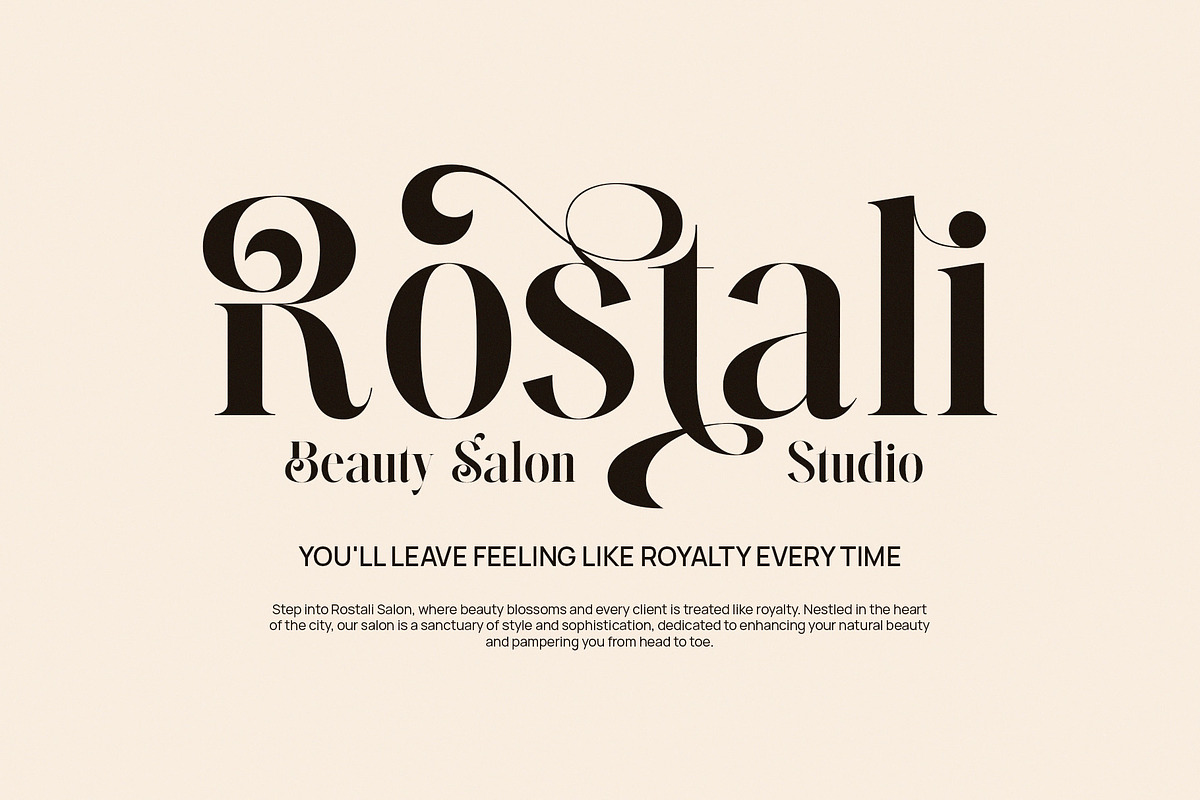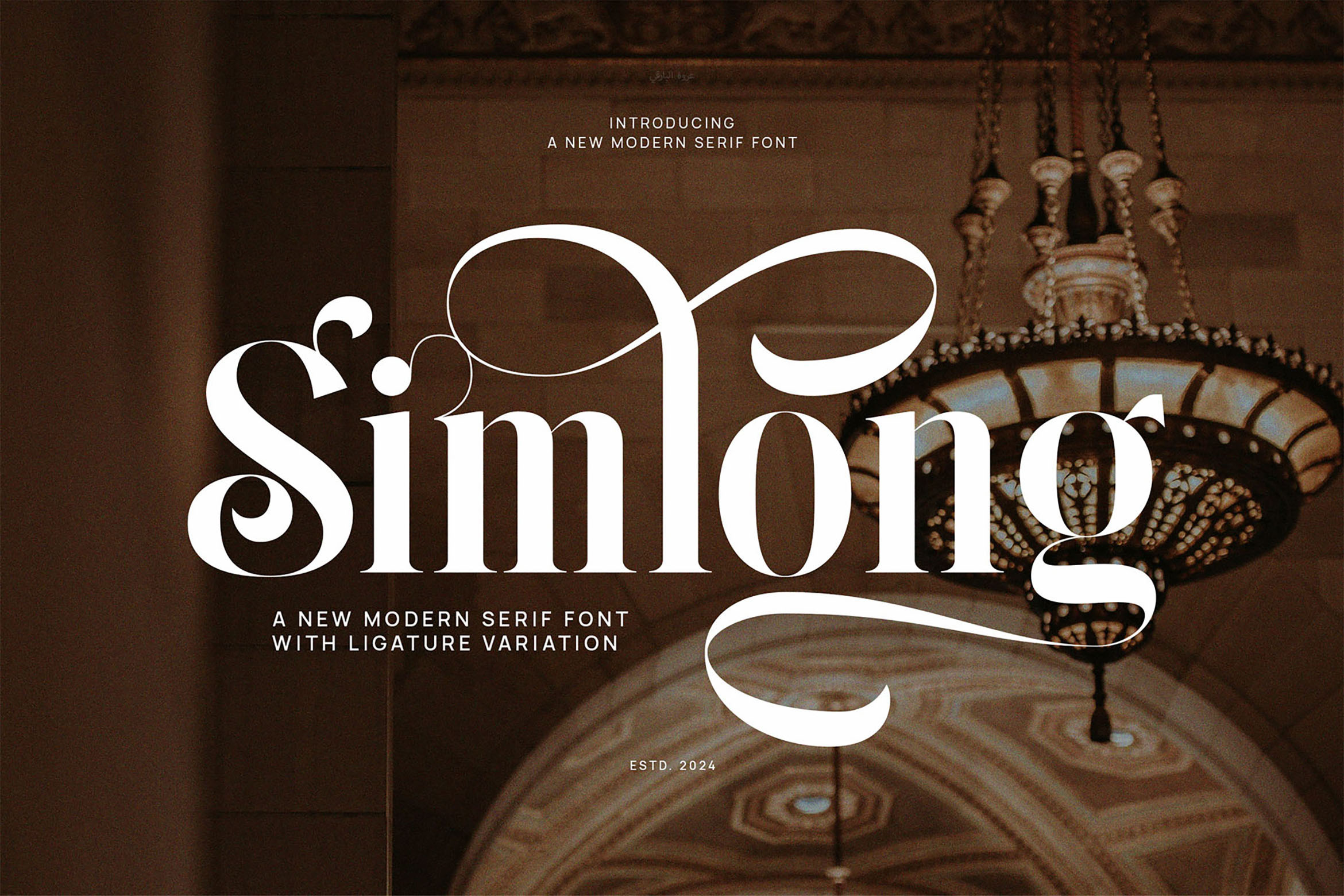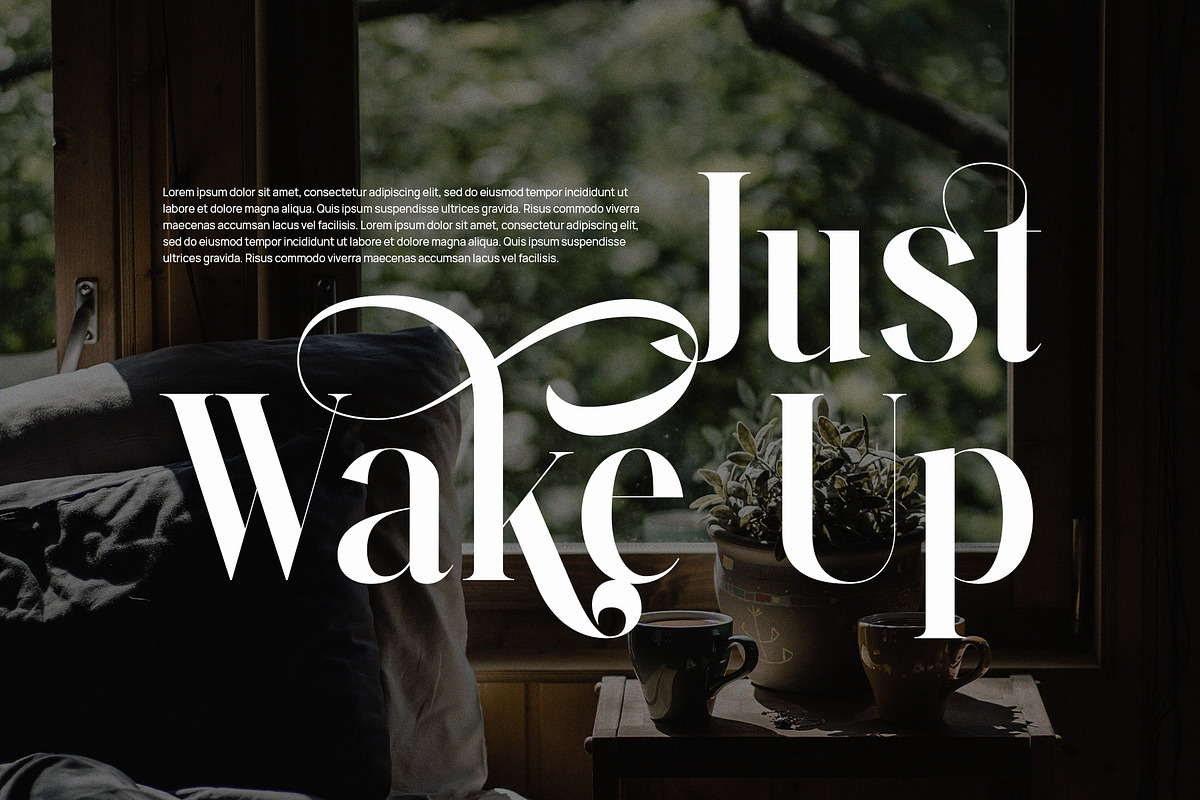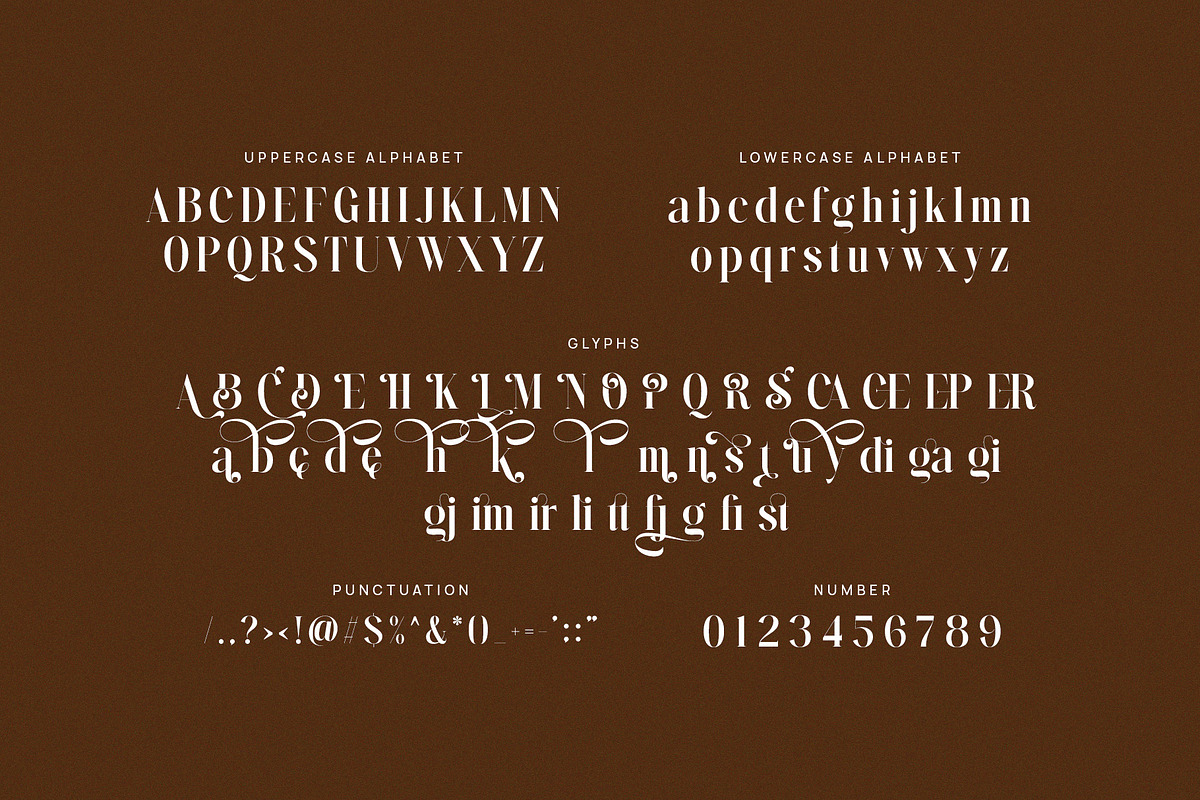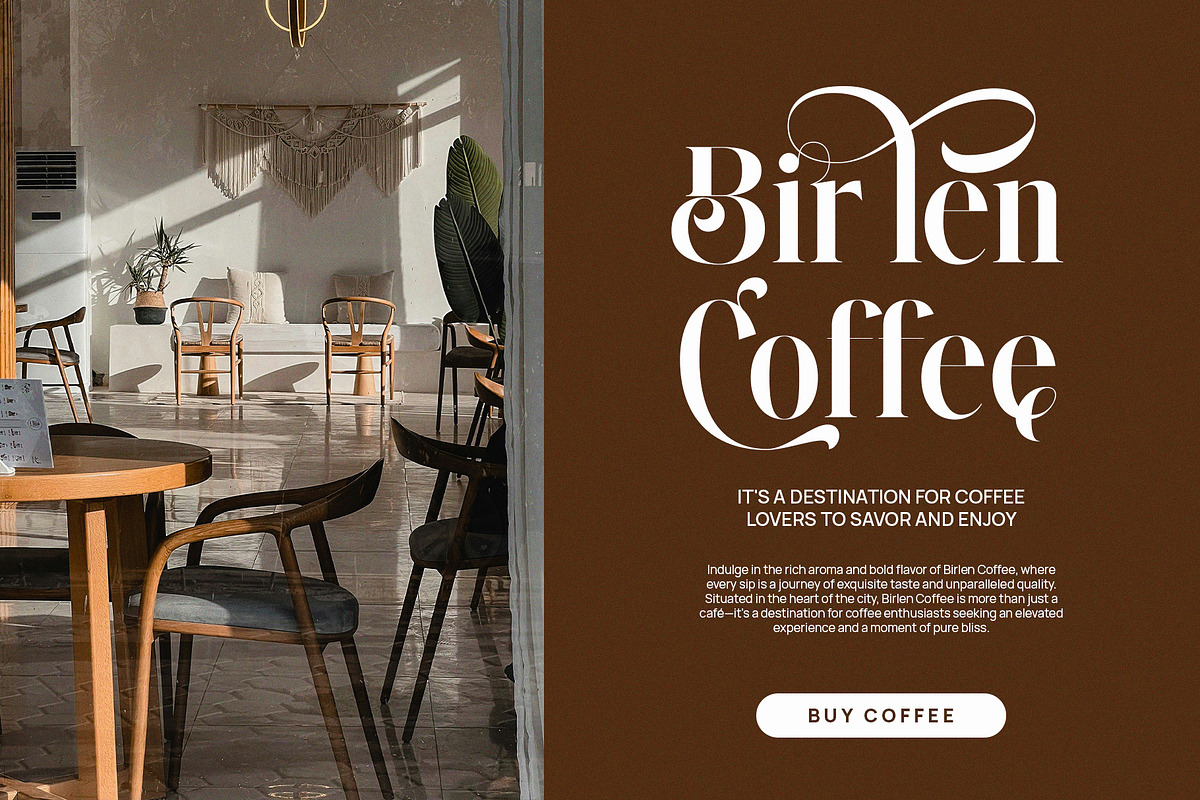
Simlong - Elegant Serif Font
Introducing our new Simlong, modern serif font with elegant style this is perfect for branding, logos, invitation, magazines, product packaging and more.